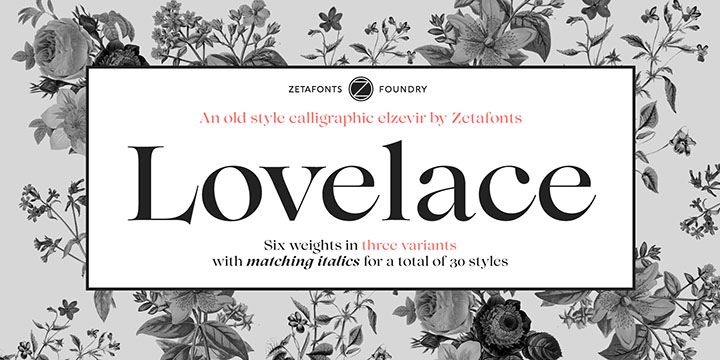
Lovelace Font
Lovelace Font is perfect for women in technology organizations, coding bootcamp branding, STEM education materials, feminist tech companies, computer science publications, and innovative programming platforms. This intelligent typeface excels in tech diversity initiatives, coding tutorial designs, programming conference materials, and any application where computational thinking and feminine innovation create inspiring connections with technology communities.
What makes Lovelace Font so exciting is its remarkable ability to embody the pioneering spirit and mathematical brilliance of Ada Lovelace through precisely engineered letterforms that honor the world's first computer programmer. The font features algorithmic curves, logical proportions, and computational character shapes that reflect the intersection of mathematical elegance and programming innovation. Its pioneering presence makes it perfect for organizations celebrating women's contributions to technology and computer science.
Lovelace Font comes in a computational family including Light, Regular, Medium, Bold, and Algorithm weights. Each style features complete uppercase and lowercase character sets, coding symbols, mathematical numerals, and programming punctuation marks. The font family also includes binary alternates, code ligatures, and algorithm variations that allow designers to create truly innovative communications with tech appeal and professional computational quality.
The font's computational character makes it particularly effective for coding schools, tech diversity organizations, computer science departments, and programming education platforms. Its algorithmic readability ensures that Lovelace Font communicates clearly while maintaining its distinctive pioneering personality. The font's ability to inspire innovation and computational thinking makes it an invaluable algorithm for any project seeking to celebrate programming heritage and connect with audiences through the timeless appeal of mathematical beauty, computational logic, and the revolutionary spirit of Ada Lovelace's groundbreaking contributions to computer science.